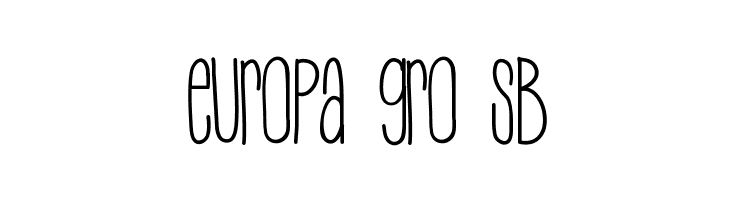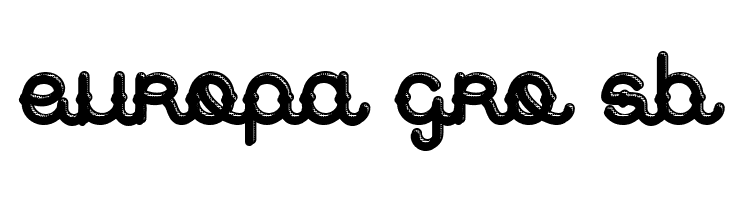
A bold, cursive script font with dynamic, interconnected letters and decorative flourishes.
A sleek, modern font with thin, elongated letterforms for a sophisticated look.
A playful, interconnected font with a looping, chain-like design.
A bold, textured font with a distressed, vintage look.
A tall, slender font with a modern and stylish appearance, featuring consistent stroke widths.
A bold, dynamic font with diagonal stripe patterns, ideal for impactful designs.
A playful, handwritten font with fluid strokes and a casual vibe.
A cursive, handwritten font with elegant, flowing letters.